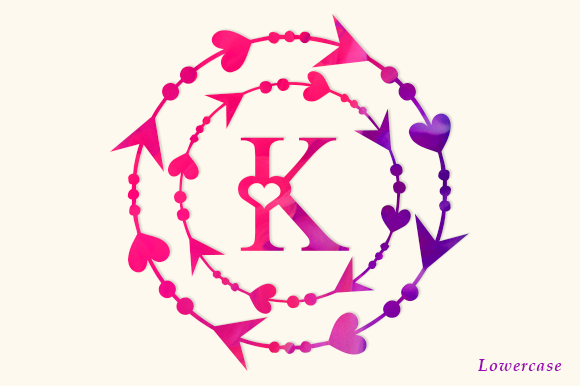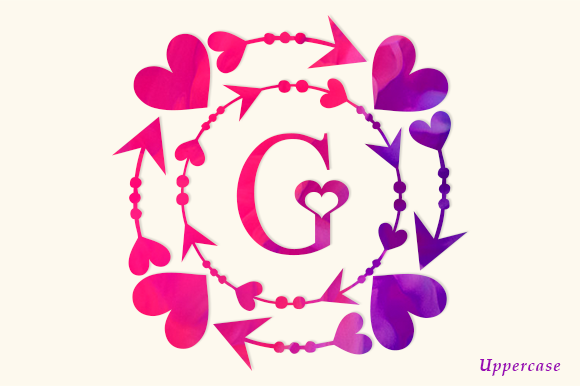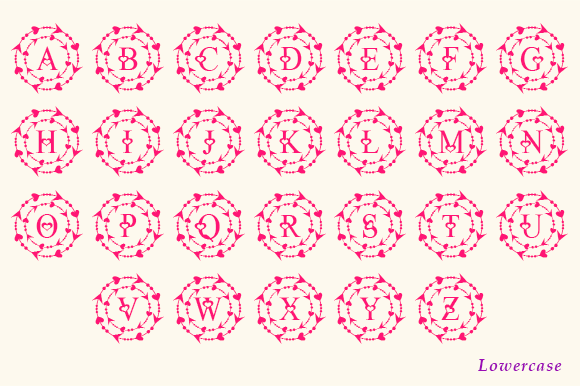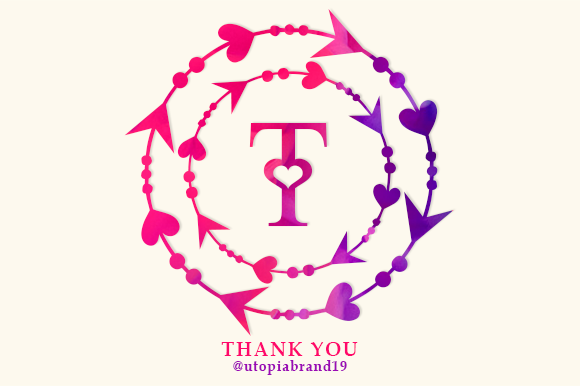
Introducing Boho Monogram Font: Elevate Your Designs with Romance and Elegance
Are you a designer, crafter, or DIY enthusiast looking for a font that exudes romance and uniqueness? Look no further than the Boho Monogram Font. This decorative font is perfect for adding a touch of elegance and whimsy to your love letters, wedding invitations, and design projects. In this article, we’ll dive into the world of Boho Monogram Font and explore its features, uses, and benefits.
What is Boho Monogram Font?
Boho Monogram Font is a romantic and unique decorative font that is sure to capture the hearts of designers and crafters alike. Its distinctive and elegant design makes it perfect for a variety of projects, from wedding invitations and love letters to branding and packaging. With its bohemian-inspired aesthetic, this font adds a touch of sophistication and charm to any design.
Key Features of Boho Monogram Font
- Unique and Romantic Design: Boho Monogram Font boasts a distinctive and romantic design that is sure to make your projects stand out.
- Elegant and Whimsical: This font combines elegance and whimsy, making it perfect for a variety of design projects.
- High-Quality Design: This font is designed with high-quality craftsmanship, ensuring that it looks great in any design.
Uses of Boho Monogram Font
Boho Monogram Font is a versatile font that can be used in a variety of design projects, including:
- Wedding Invitations: Add a touch of romance and elegance to your wedding invitations with Boho Monogram Font.
- Love Letters: Make your love letters extra special with this beautiful and unique font.
- Branding and Packaging: Use Boho Monogram Font to add a touch of sophistication and charm to your branding and packaging designs.
- DIY Projects: This font is perfect for DIY enthusiasts who want to add a personal touch to their projects.
Benefits of Using Boho Monogram Font
By using Boho Monogram Font, designers and crafters can enjoy a range of benefits, including:
- Unique and Eye-Catching Designs: This font helps you create unique and eye-catching designs that are sure to stand out.
- Elegance and Sophistication: Boho Monogram Font adds a touch of elegance and sophistication to any design.
- High-Quality Design: Boho Monogram Font is designed with high-quality craftsmanship, ensuring that it looks great in any design.
Tips for Using Boho Monogram Font
Here are some tips for using Boho Monogram Font in your design projects:
- Pair with Other Fonts: Experiment with pairing Boho Monogram Font with other fonts to create a unique and eye-catching design.
- Use in Combination with Images: Use Boho Monogram Font in combination with images to add a touch of elegance and sophistication to your designs.